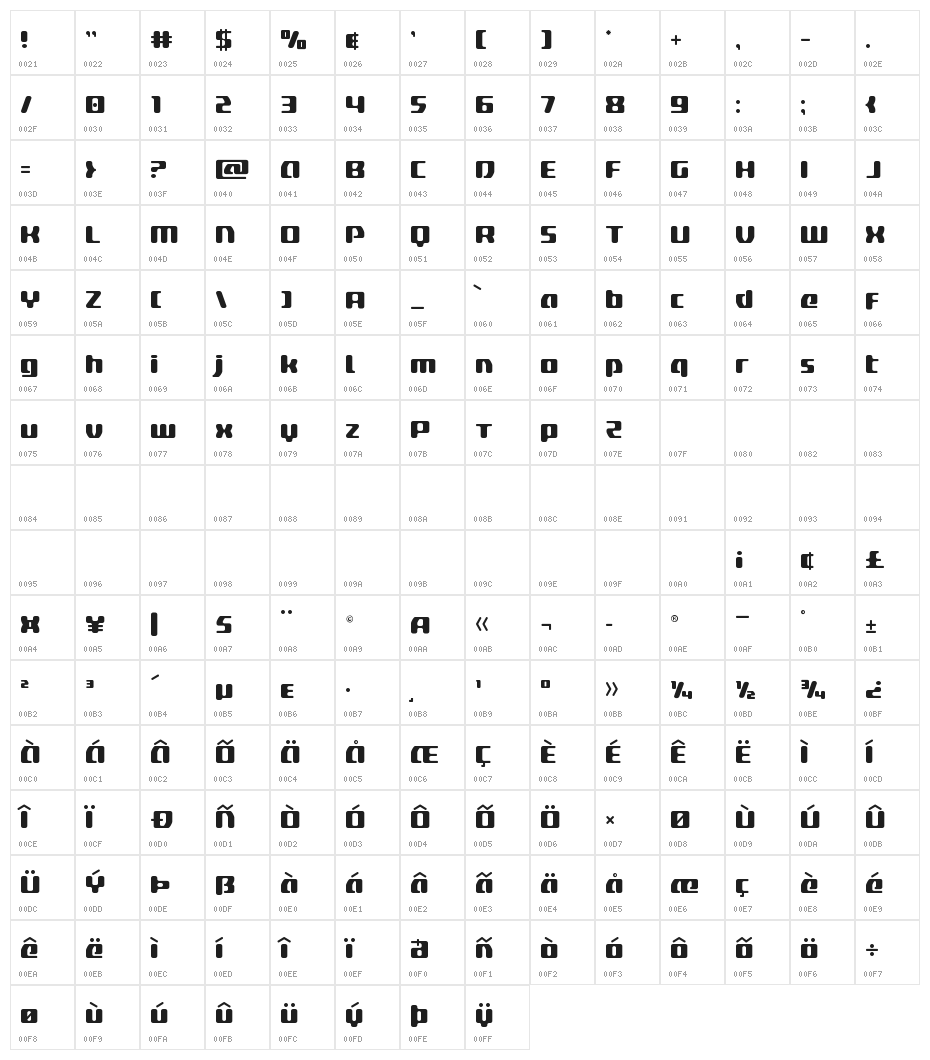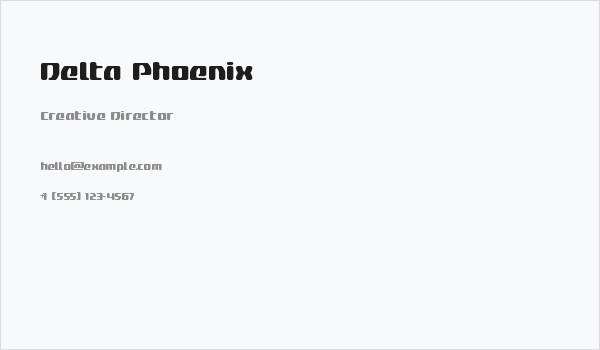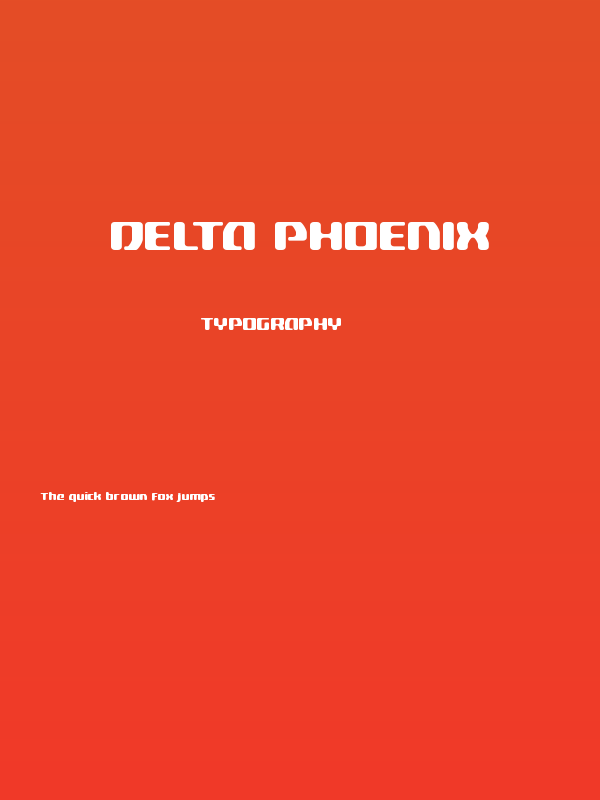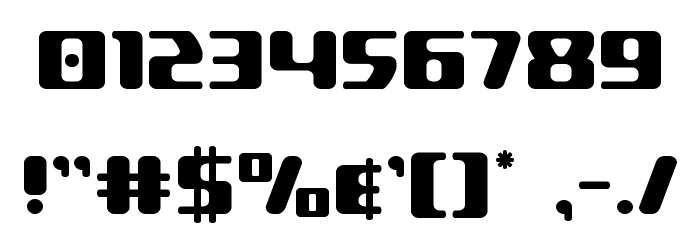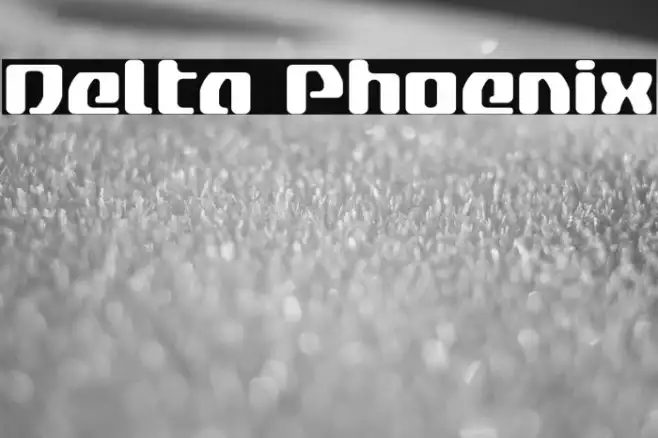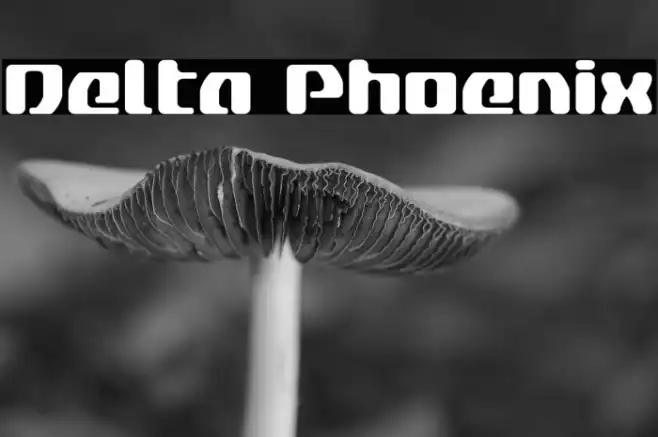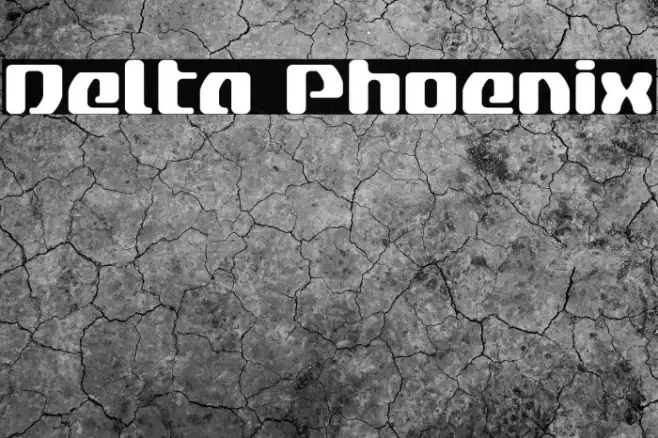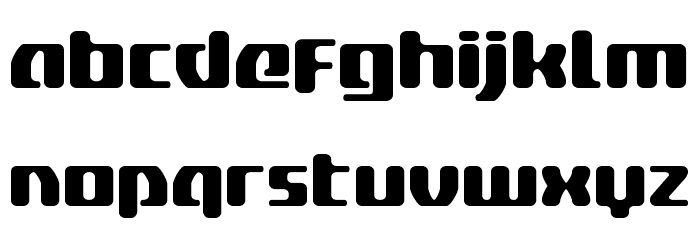
Delta Phoenix Font
Delta Phoenix Description
This font features a bold and futuristic design with a strong geometric structure. The characters are uniformly thick, creating a sense of solidity and modernity. The rounded edges and consistent stroke width give it a sleek and polished appearance. The uppercase and lowercase letters maintain a cohesive style, while the numerals and special characters are designed to match the overall aesthetic. This font is ideal for projects that require a contemporary and impactful look, such as technology branding, video game titles, or sci-fi themed designs.
| Proposed Projects | Ideal for technology branding, video game titles, sci-fi themed designs, and modern advertising. |